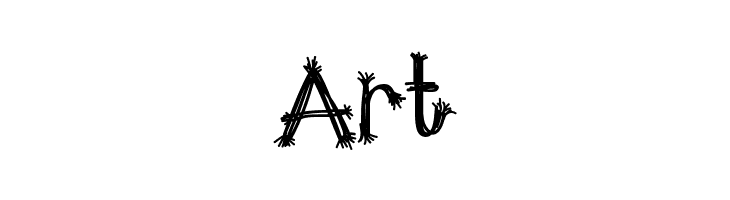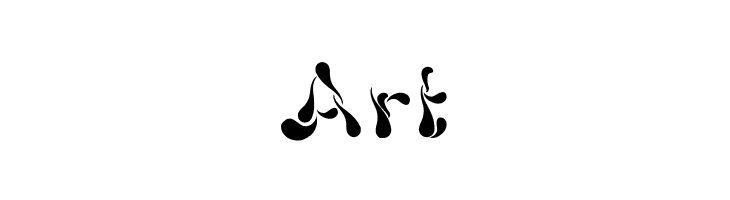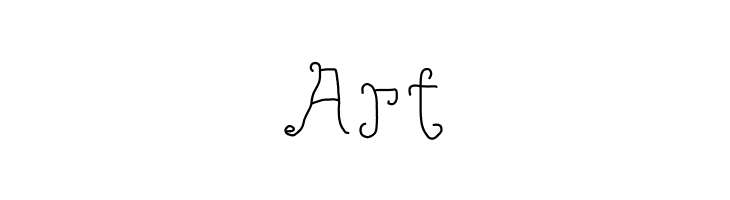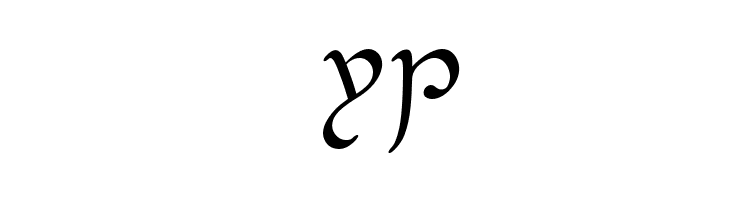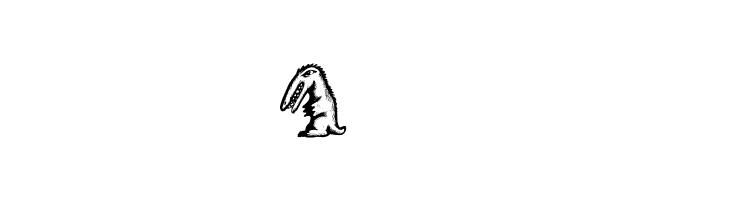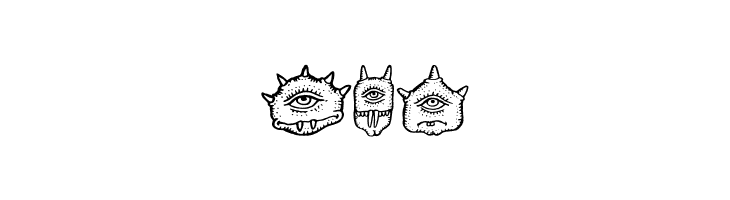
( Jen Jones - www.jenjonesfonts.com )
A whimsical, hand-drawn font with a scarecrow theme, featuring straw-like elements.
( K. Bishop Martinez )
A bold, decorative font with fluid, droplet-like shapes and dynamic curves.
( Marco Ballarè - www.marcoballare.com )
A whimsical, skyline-themed decorative font with hand-drawn cityscape characters.
( MiniCandy - Miranda )
A whimsical collection of playful and enchanting dingbats featuring princess-themed symbols.
( Nerdle Pants )
A whimsical and playful font with curly, looped strokes and decorative swirls.
( Noah K. )
A mystical and elegant script inspired by Tolkien's Tengwar, perfect for fantasy themes.
( Vaclav Krejci - www.upir.org/ )
Playful, childlike doodle font with irregular, sketchy lines.
( Vladimir Nikolic - www.coroflot.com/vladimirnikolic )
A playful font featuring cartoonish animal faces with bold, rounded designs.
( Vladimir Nikolic - www.coroflot.com/vladimirnikolic )
A playful, dinosaur-themed decorative font with detailed textures.
( Vladimir Nikolic - www.coroflot.com/vladimirnikolic )
A whimsical, hand-drawn font featuring unique monster-like characters.